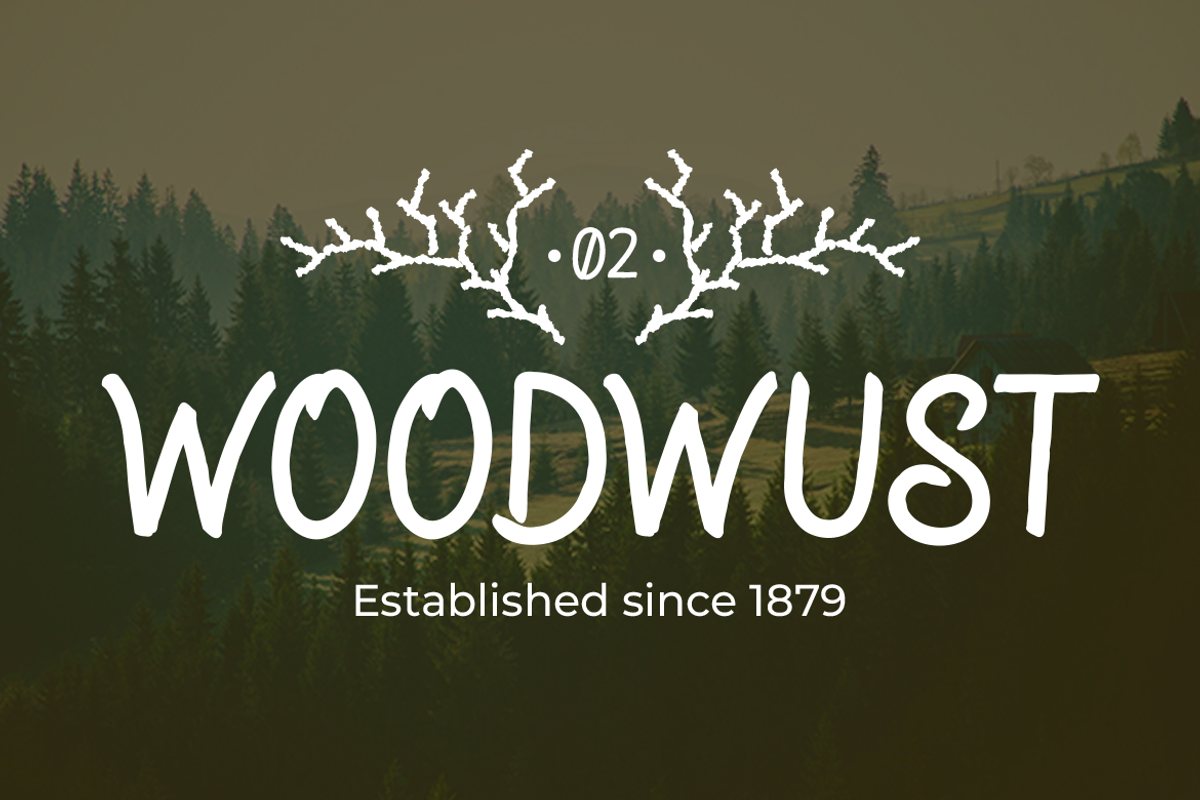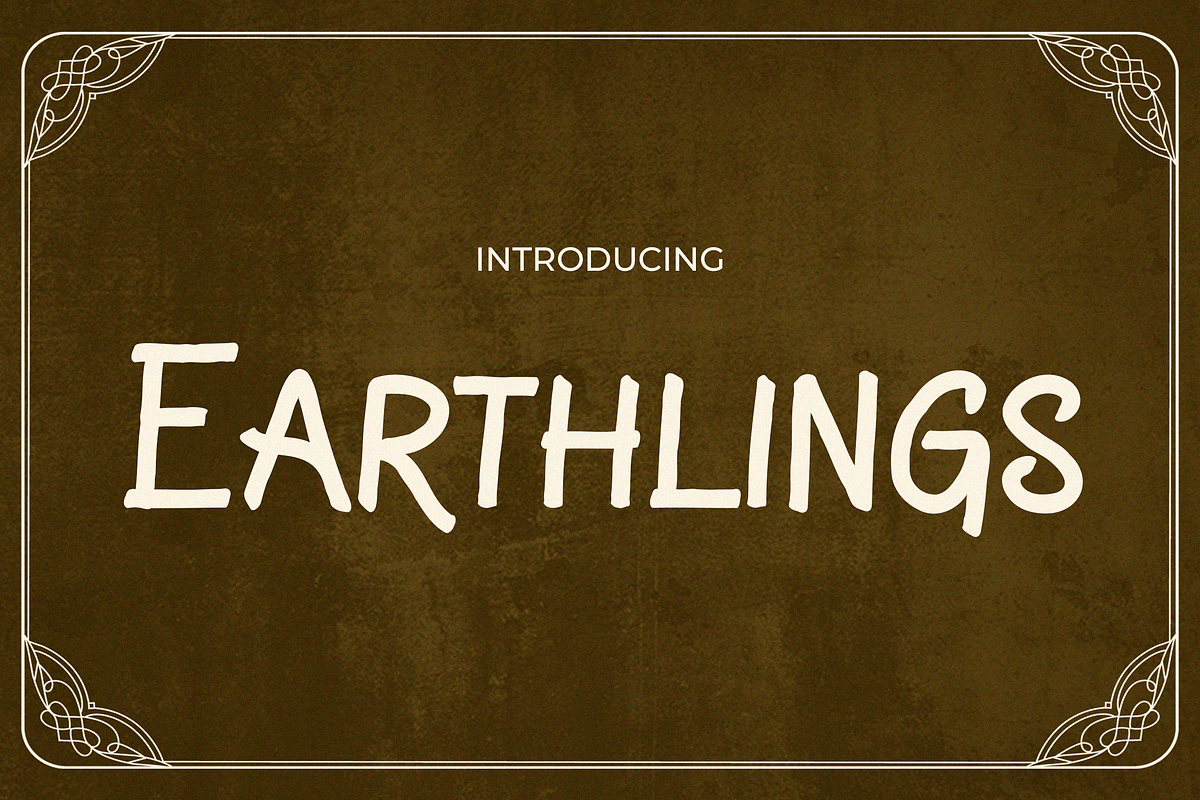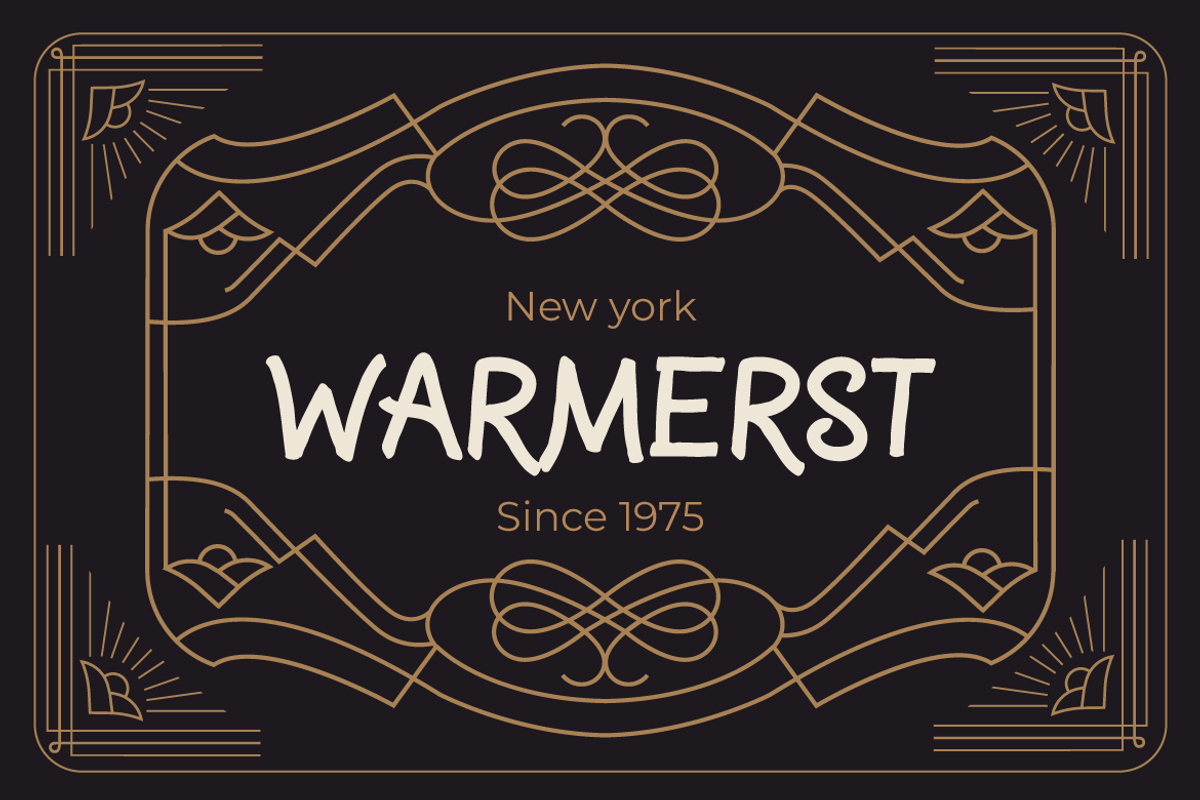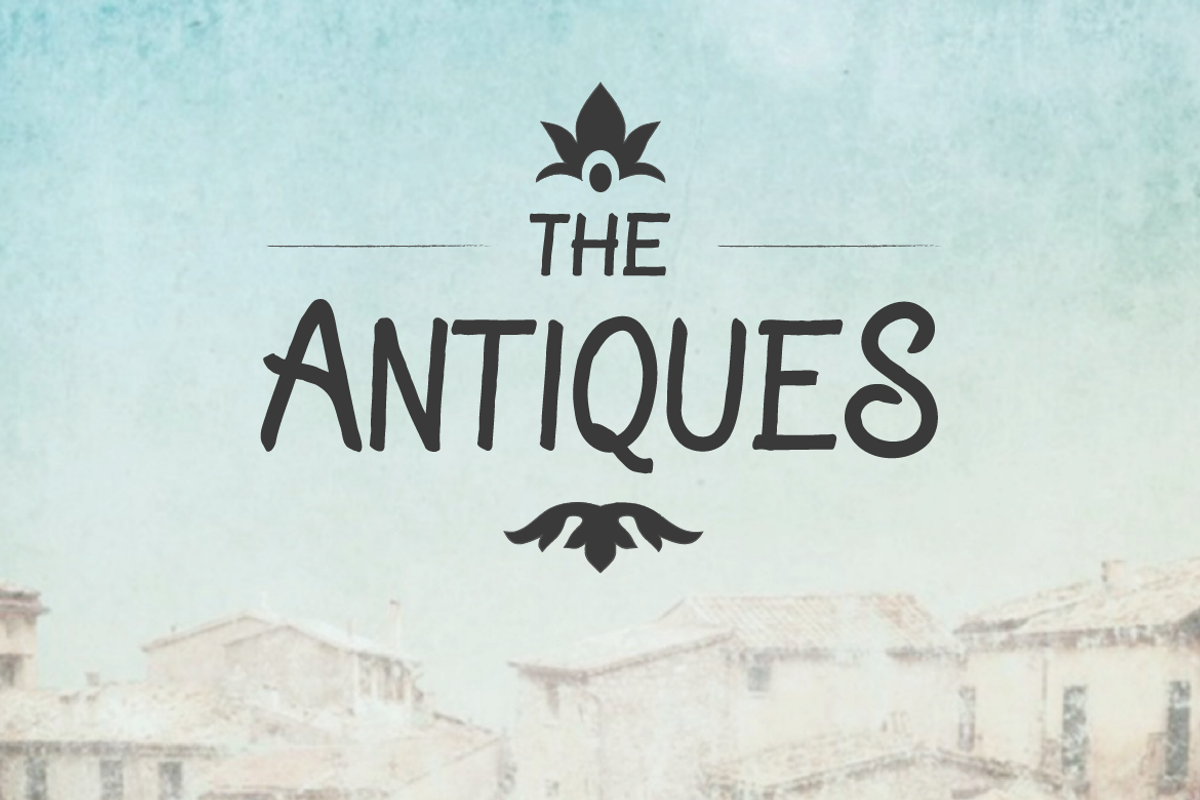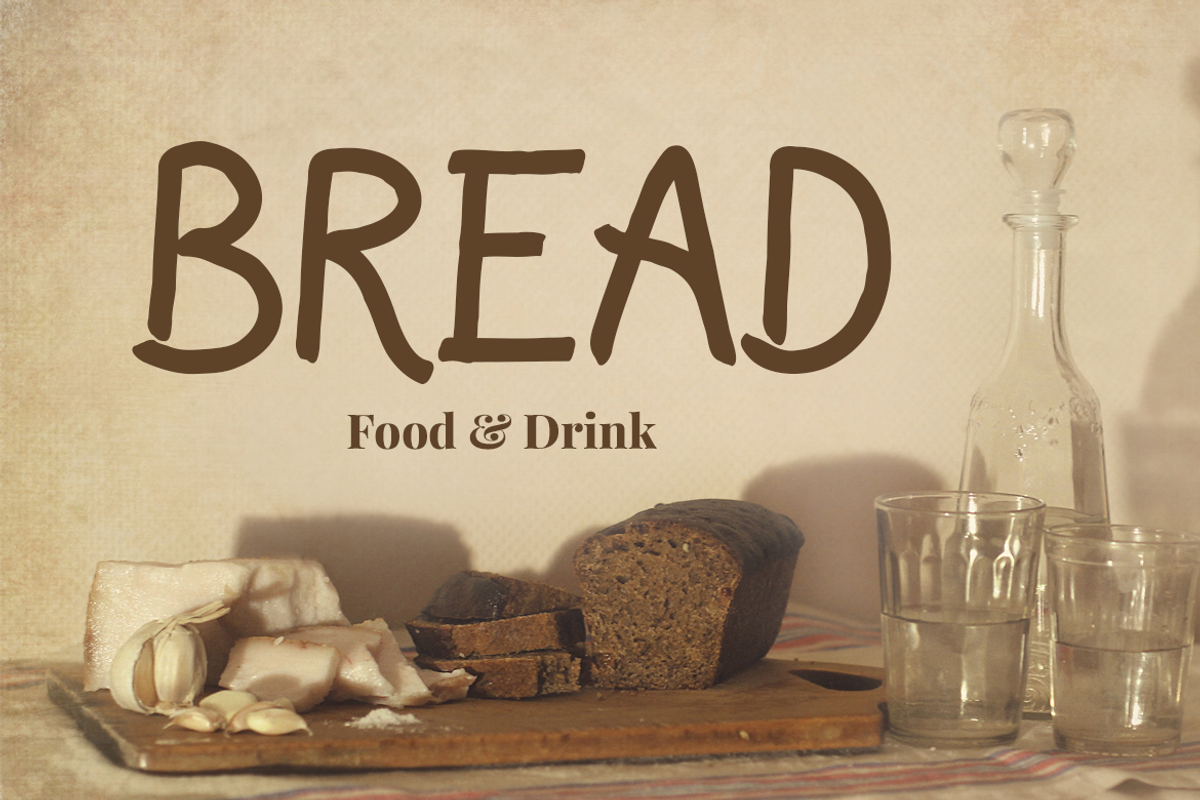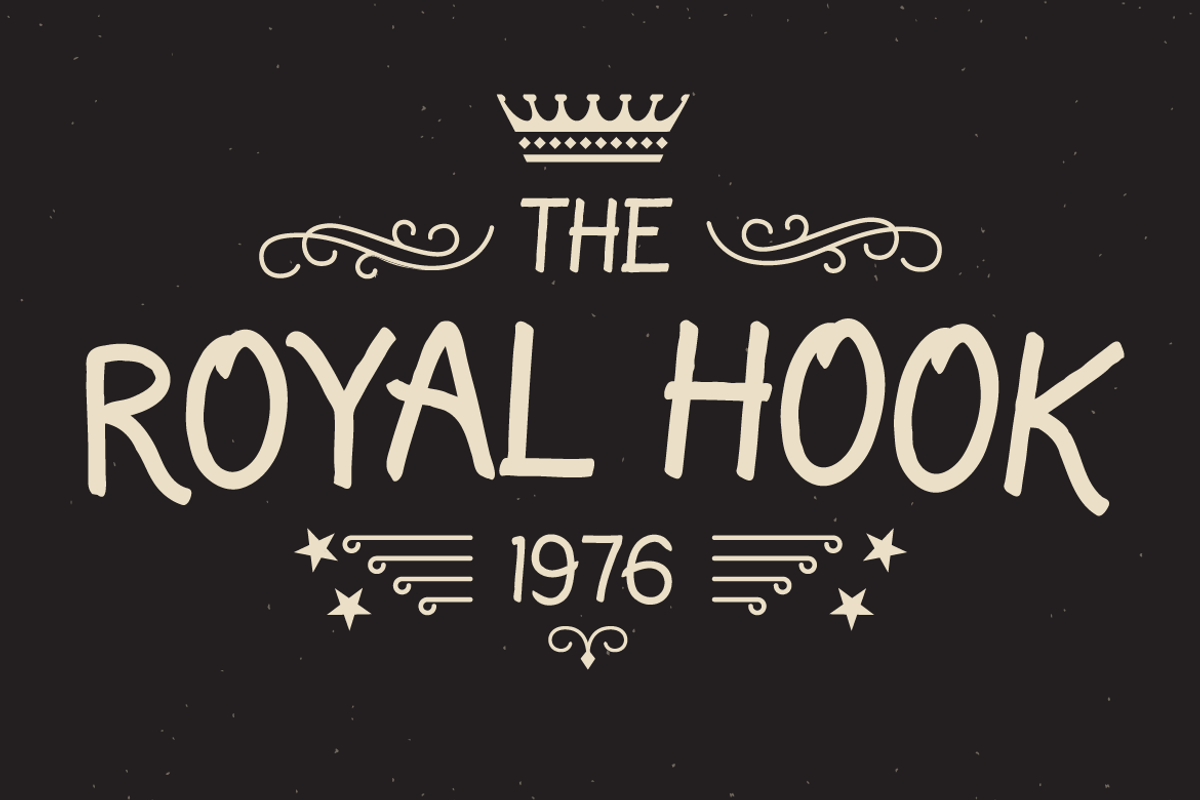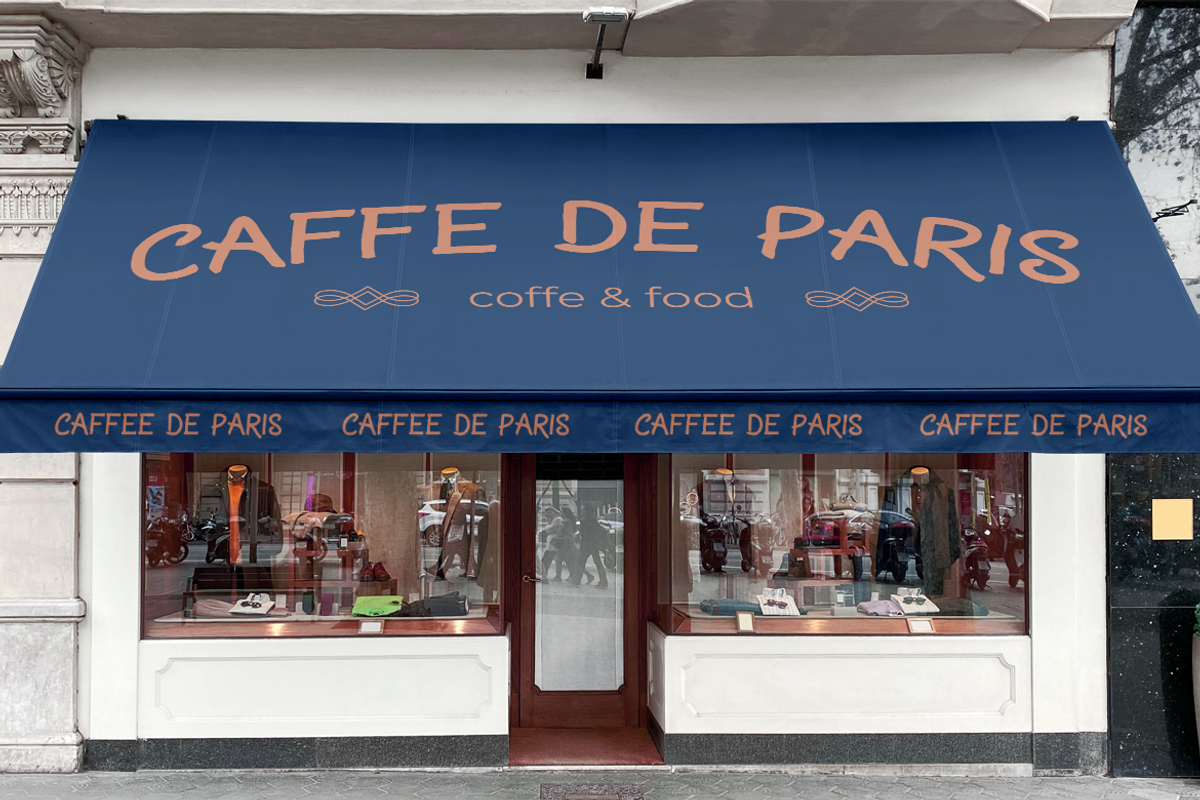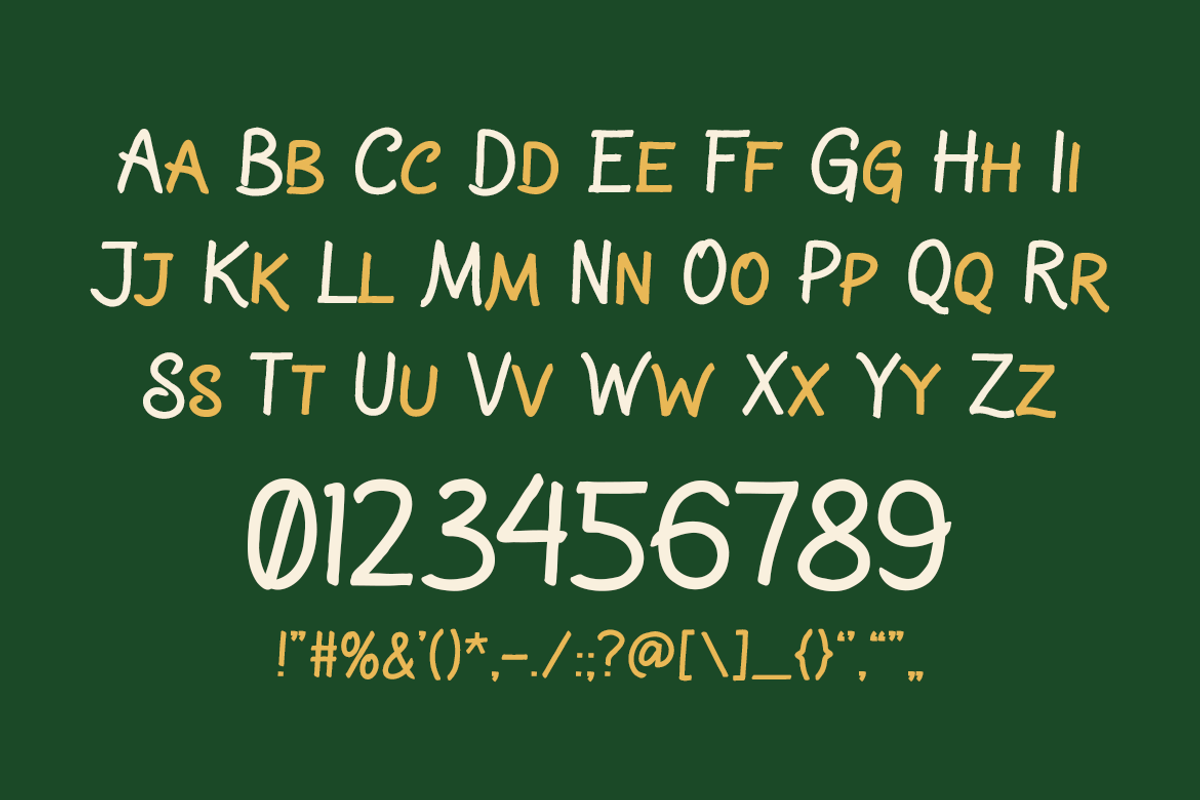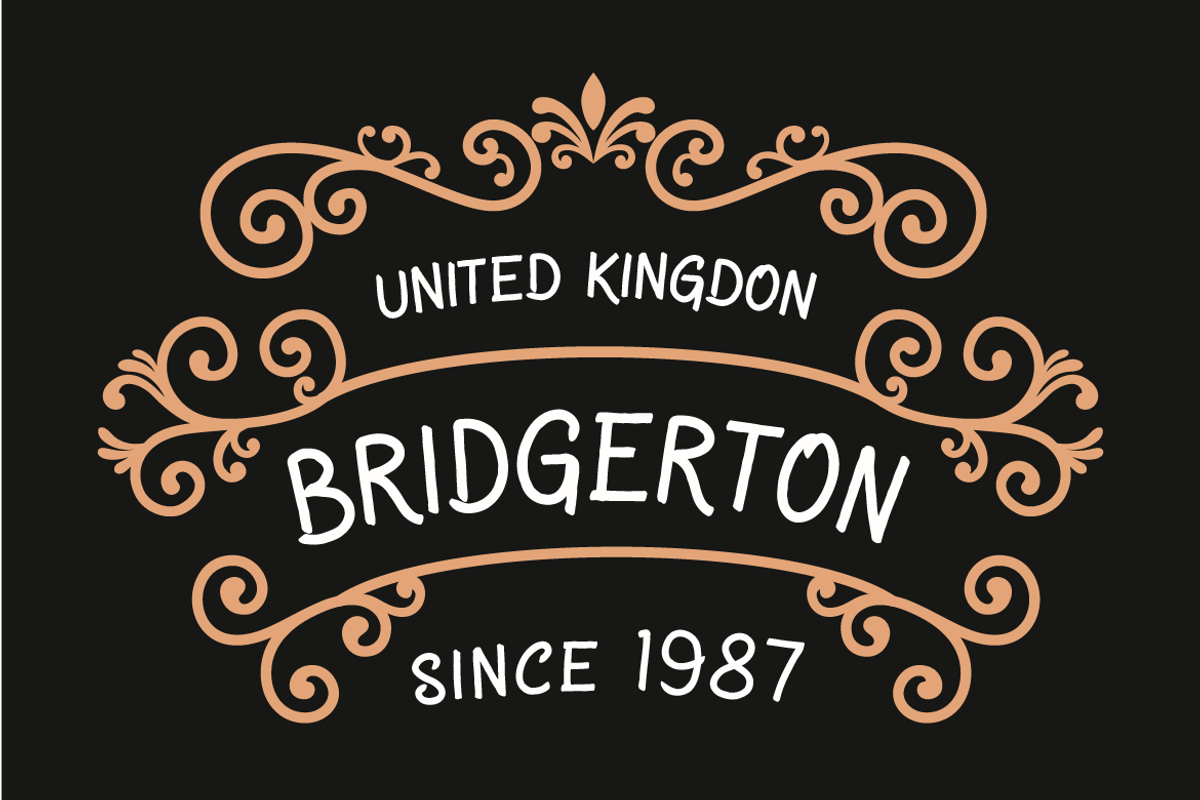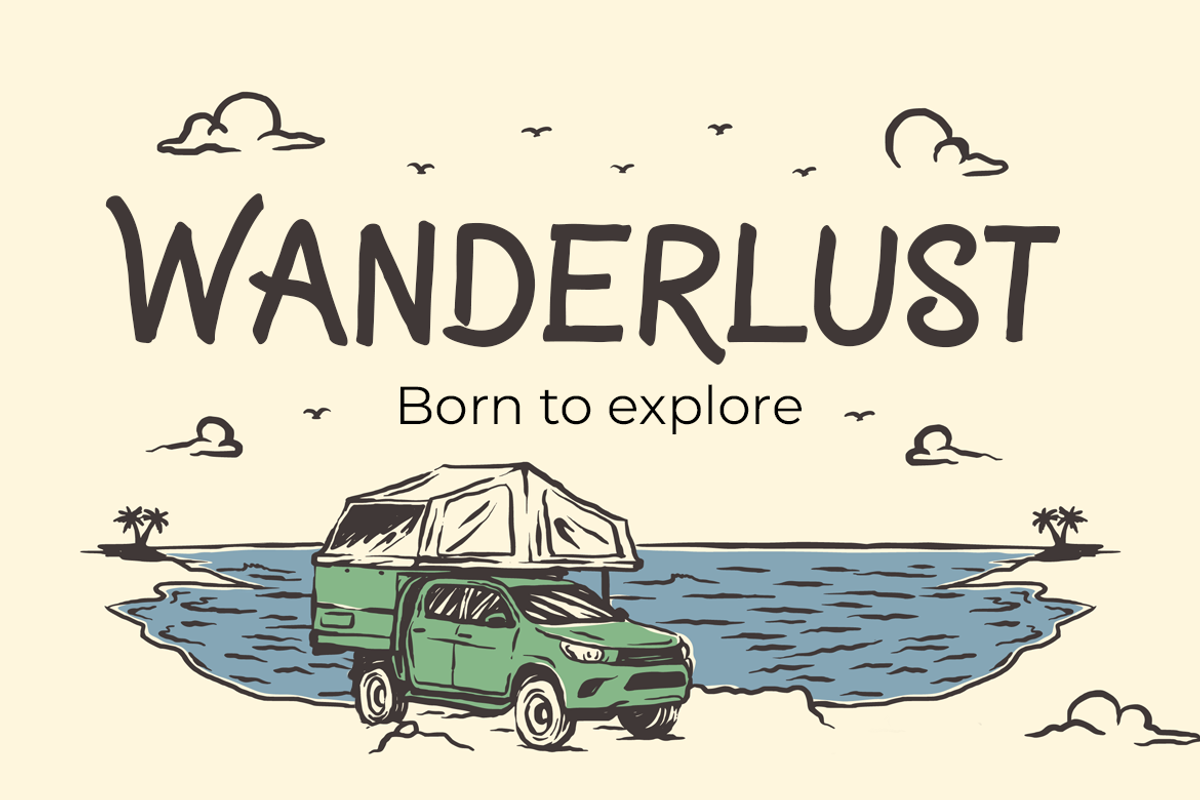
Earthlings
Earthlings – A Retro Handwritten Script
Earthlings is a captivating font that embodies the nostalgia of retro design with the charm of handwritten script and vintage flair. Its unique style evokes a sense of nostalgia, making it an ideal choice for projects that require a touch of the past. The font’s handwritten quality adds a personal, intimate touch to logos, making them stand out with a classic, yet original look.
Earthlings is also perfect for adding a sentimental and genuine feel to quotes. Its vintage elegance shines in invitations, setting the tone for events with a timeless appeal. In posters and greetings, Earthlings’ script style conveys messages with an artistic and heartfelt touch. This font’s versatility extends to packaging and branding, where it can create a memorable and distinctive brand identity. For book covers, headlines, and advertising, Earthlings ensures that your message is not only seen but felt, resonating with a sense of warmth and authenticity.